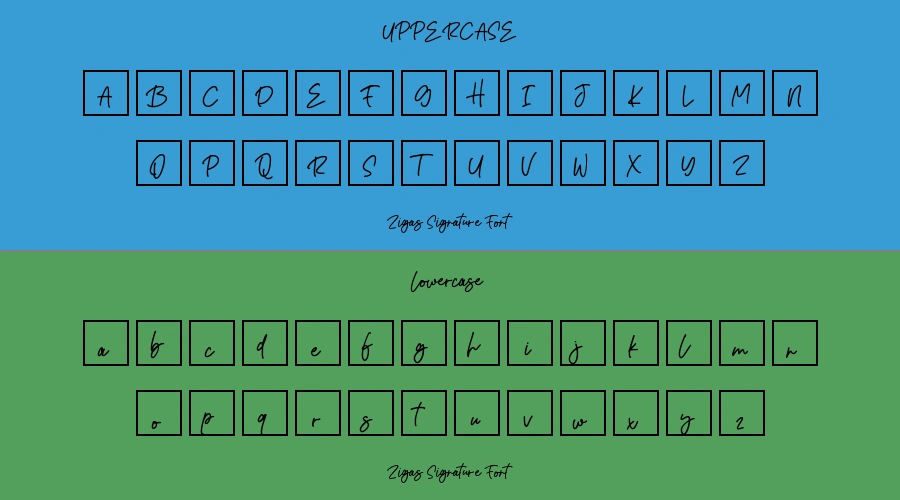
About Zigas Signature Font
Zigas Signature Font stands out for its distinctive combination of graceful curves and color consistency. Ideal for brand identities, it provides the professionalism and cultural authenticity that professional projects demand. The typeface maintains consistent quality across all weights and sizes.
Key features include refined dramatic weight and practical oldstyle figures, enhancing typographic expression. In white papers applications, Zigas Signature Font demonstrates exceptional symbol integration. The contrast level and cultural references contribute to its distinctive character and professional appeal.
Zigas Signature Font |